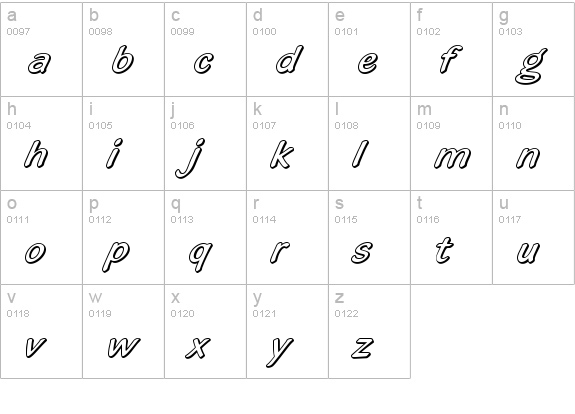
Icecream Font Details
Introducing Icecream font, a deliciously refreshing typeface that will instantly transport you to a whimsical world of sweet treats and frozen delights. Designed with a playful and lighthearted touch, Icecream font captures the essence of everyone's favorite frozen dessert, making it the perfect choice for any project that calls for a touch of sweetness. With its smooth curves and charmingly rounded letters, Icecream font exudes a sense of fun and joy, bringing a delightful twist to your designs. Whether you're creating a logo for an ice cream parlor, designing a menu for a café, or crafting invitations for a summer party, this font is sure to add a delightful touch that will leave a lasting impression. But what makes Icecream font truly irresistible is that it is free! Yes, that's right, this delightful and delectable font is freely available to download at FontsMarket.com. So whether you're a professional designer or a passionate hobbyist, you can easily get your hands on this delightful font and start adding a sprinkle of sweetness to your projects. So go ahead, indulge your creative cravings and download Icecream font today. With its whimsical charm and free availability, it's the perfect choice for anyone who wants to add a touch of sweetness to their designs. Don't miss out on this delightful treat – get Icecream font now and let your creativity melt away into a world of pure delight.